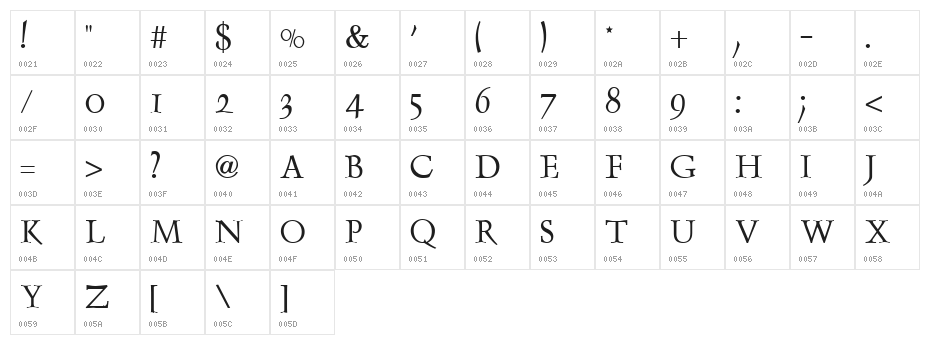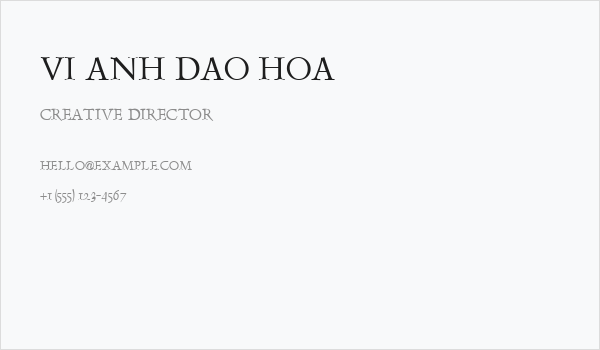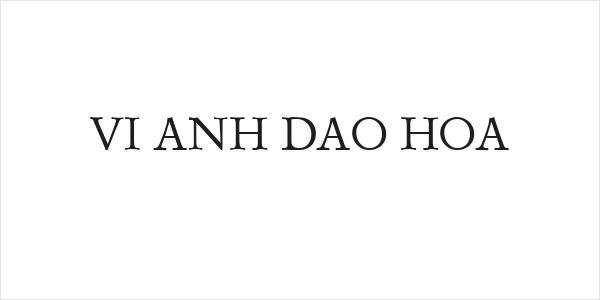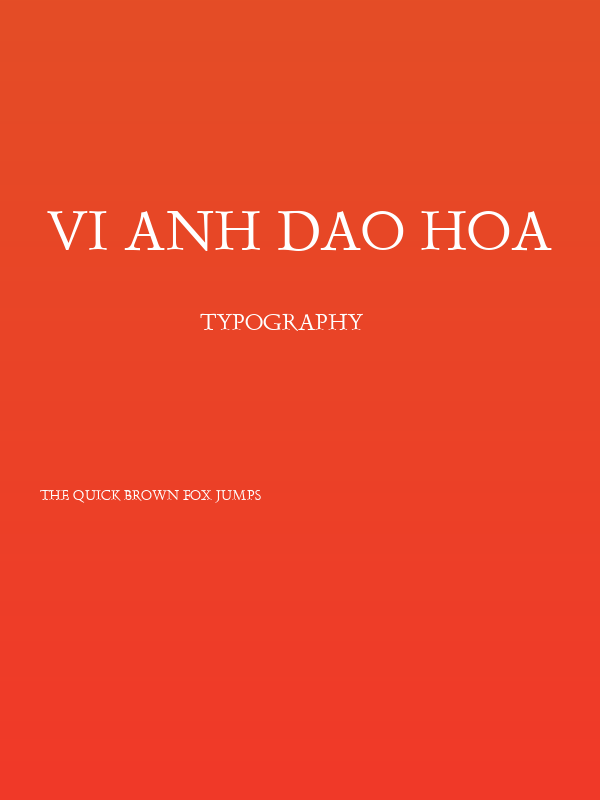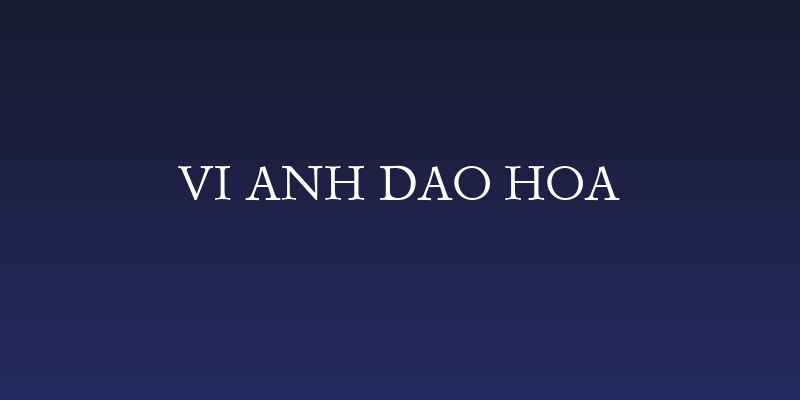
VI Anh Dao Hoa Font
VI Anh Dao Hoa Description
This font features a classic serif style with elegant, flowing lines and a refined appearance. The uppercase letters are well-proportioned, with a slight contrast in stroke thickness that adds to its sophisticated look. The lowercase letters maintain a consistent style, complementing the uppercase set with smooth curves and sharp serifs. The numerals are distinct and clear, making them easily readable. Special characters are designed with the same attention to detail, ensuring a cohesive appearance across all glyphs. This font exudes a timeless elegance, suitable for formal and traditional applications.
| Proposed Projects | Ideal for book covers, formal invitations, branding for luxury products, and editorial design. |